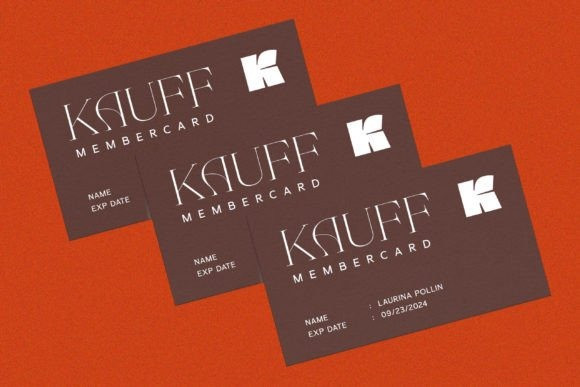
Angel Peach Font
Angel Peach Font is a fancy and classy serif font with a touch of elegance and charm. It is perfect for your up coming projects such as luxury logos and branding, classy editorial design, womens magazines, cosmetic brands, fashion promotions, art gallery branding, museums and so much more.